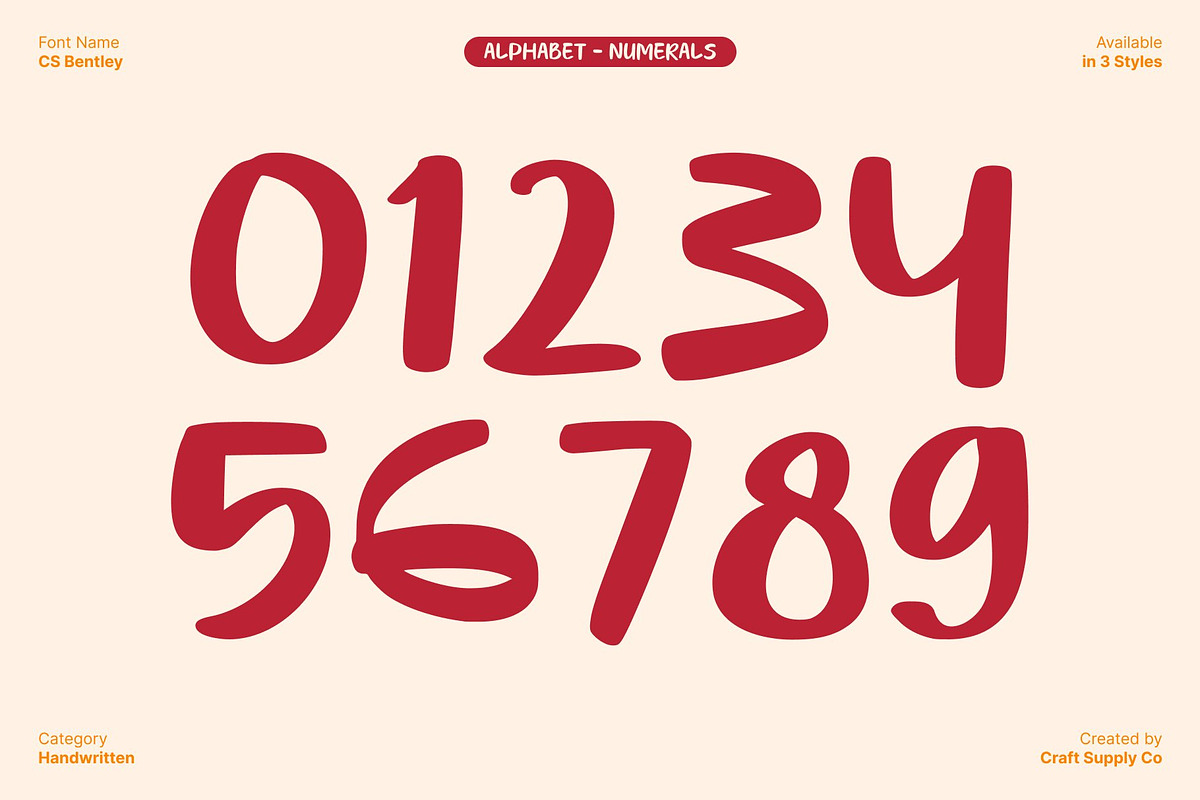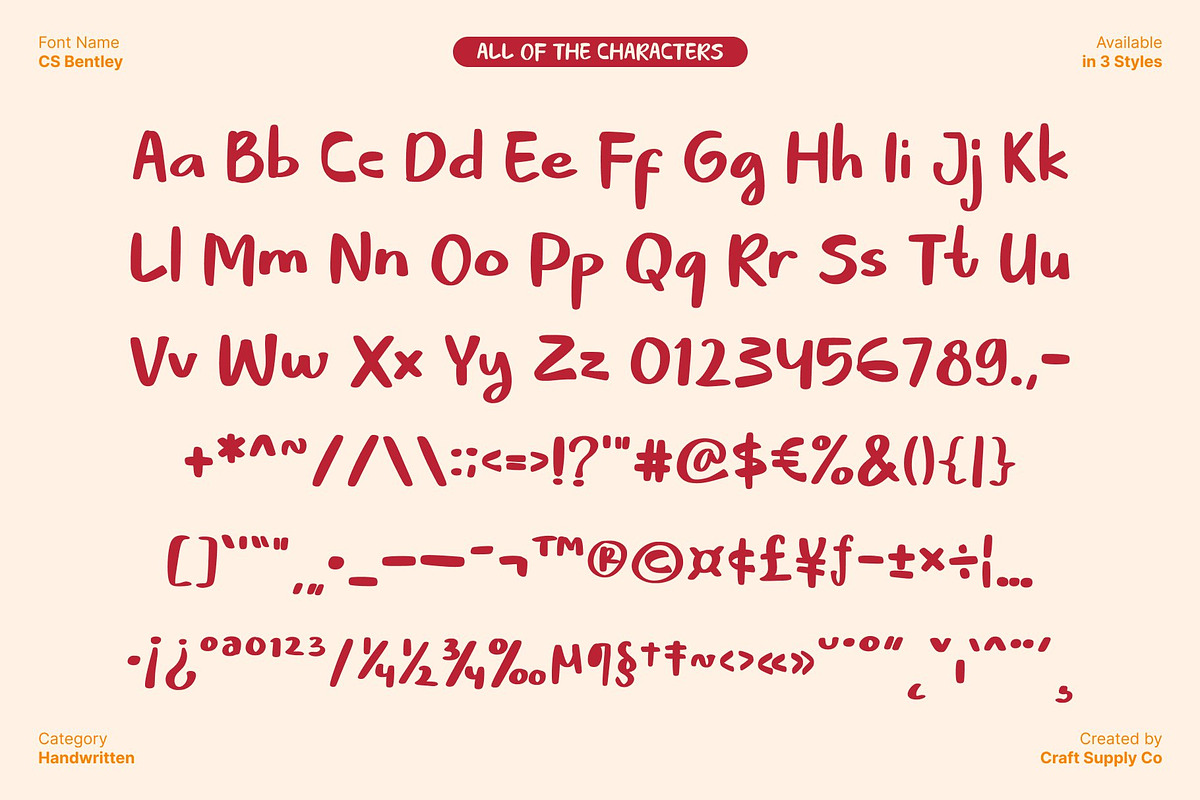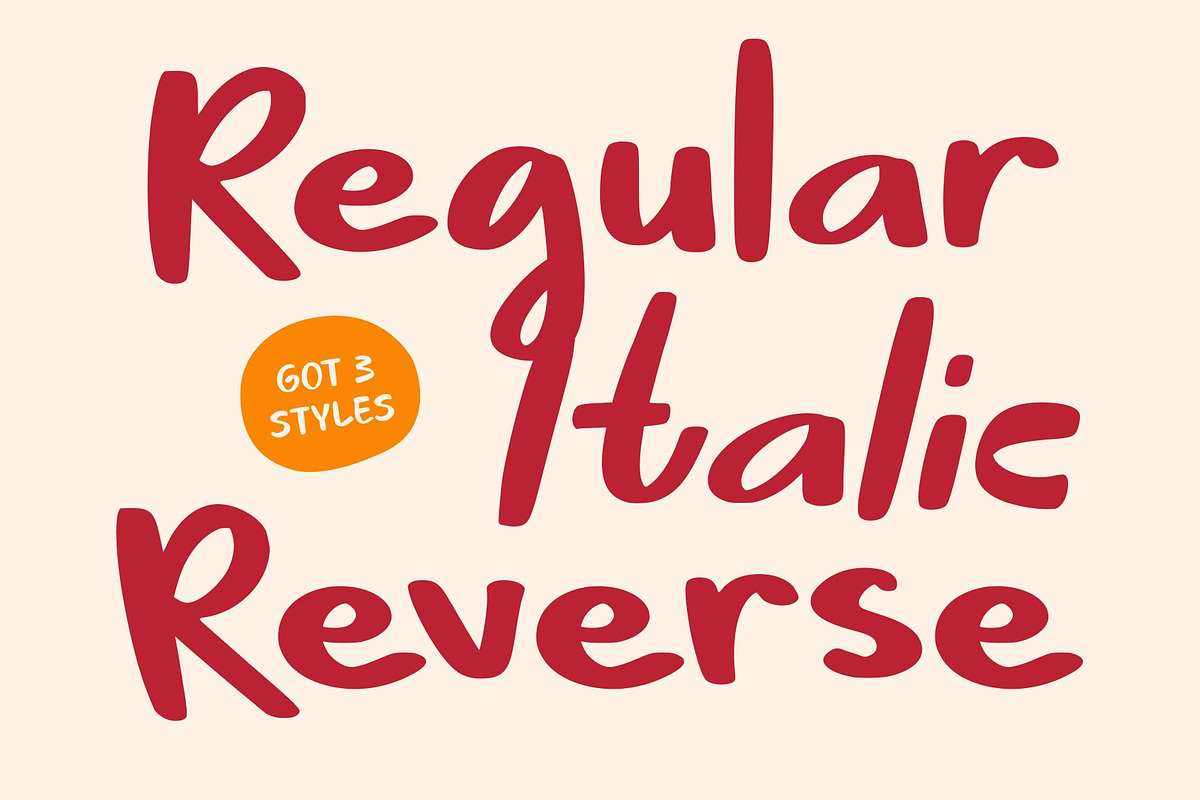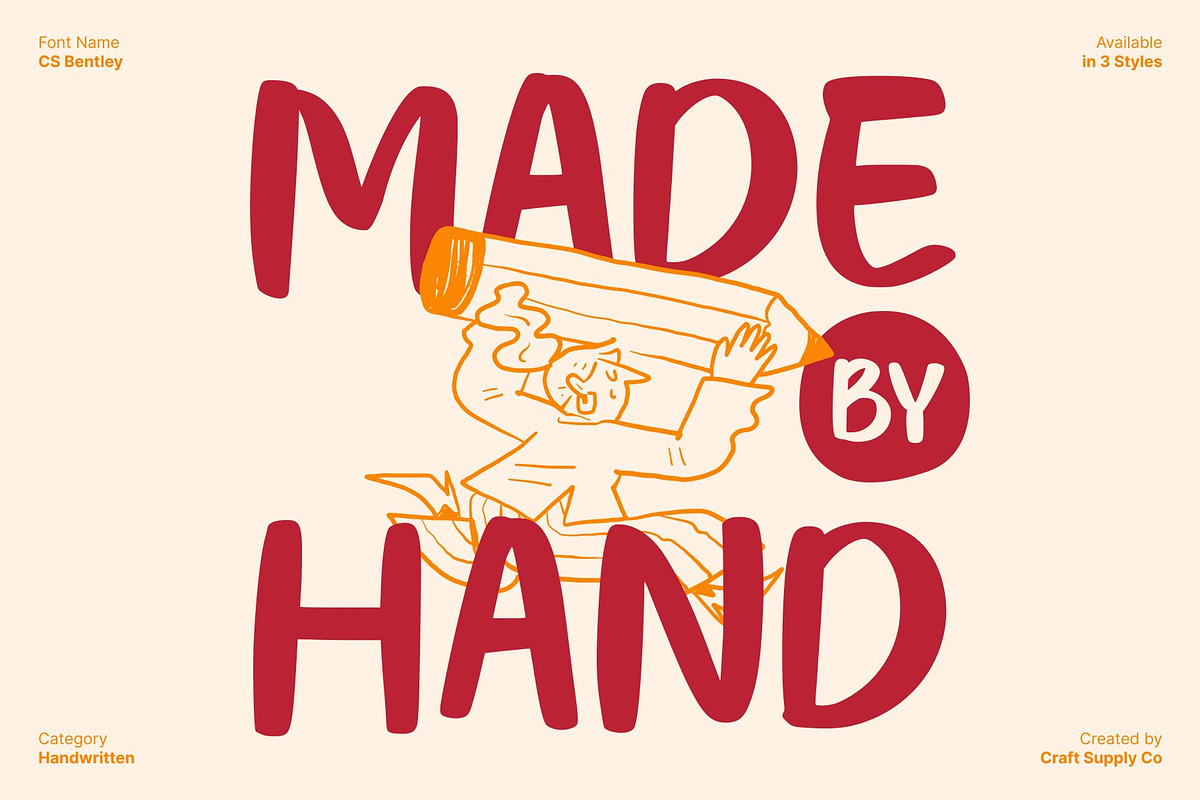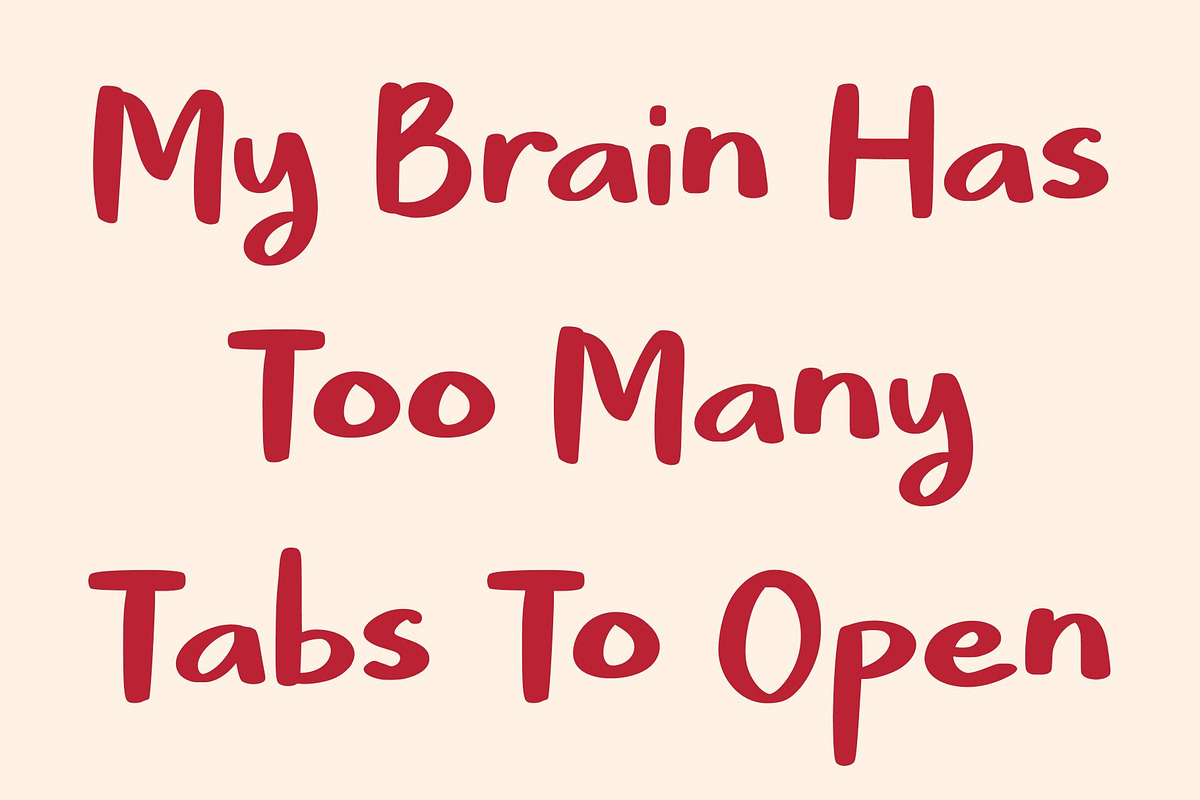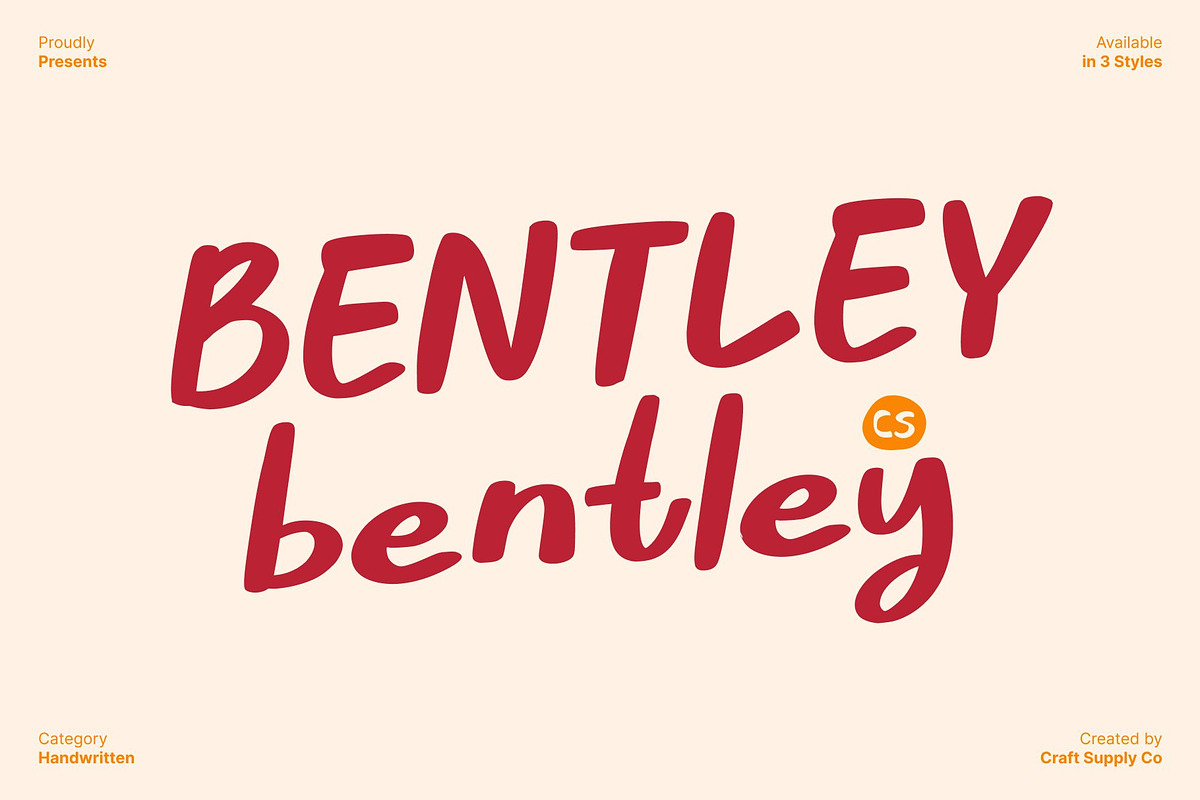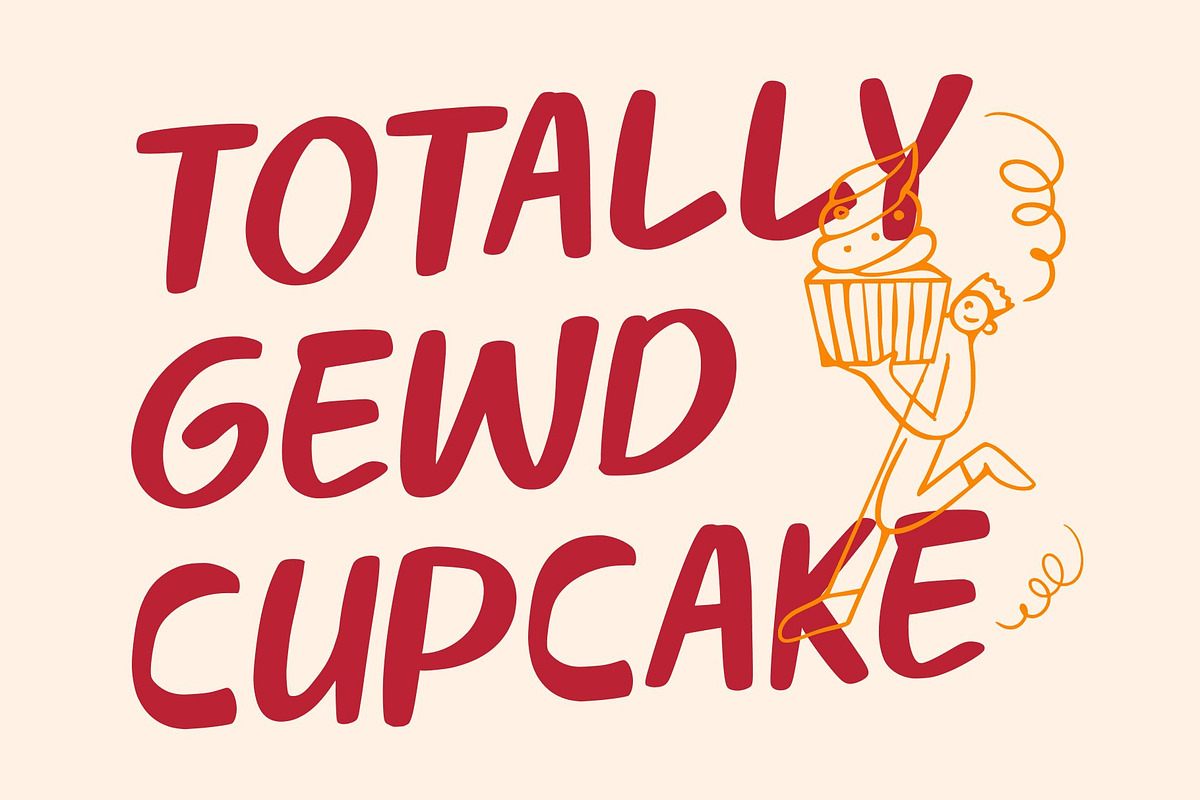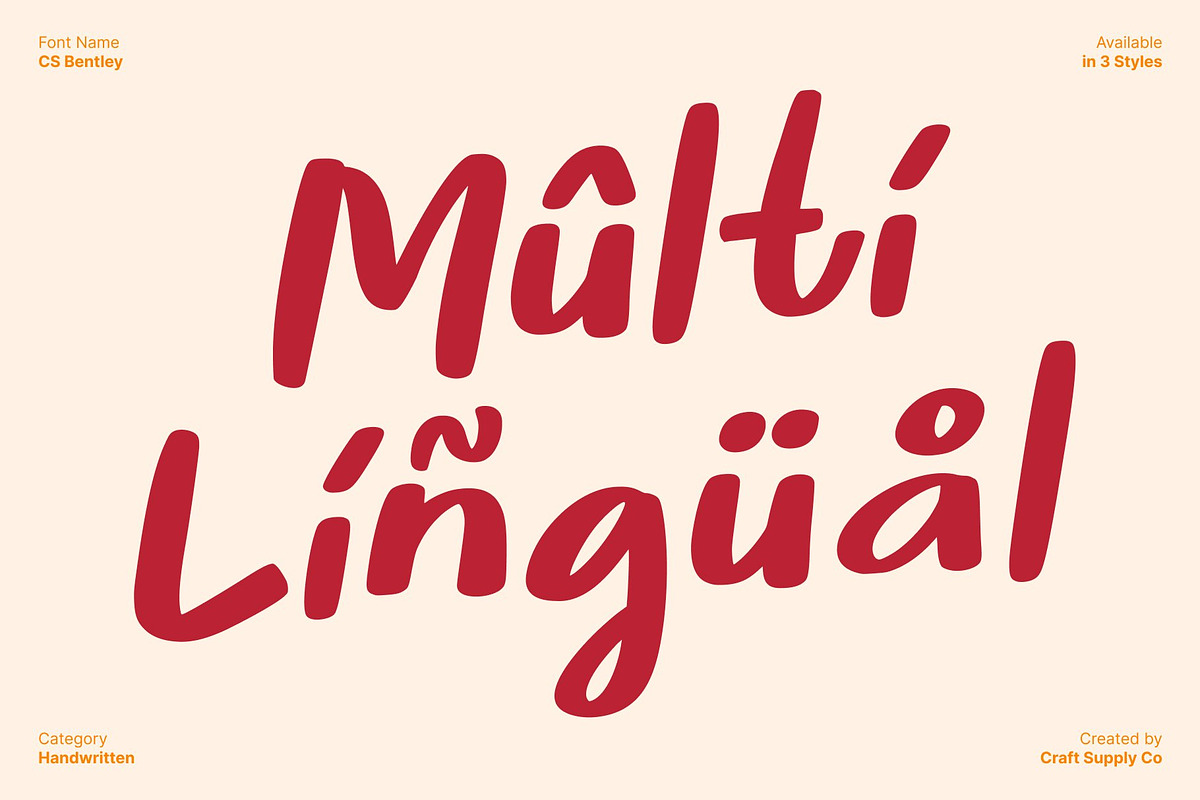
CS Bentley – Handwritten Font
CS Bentley – Soft Handwritten Font with Warm, Authentic Expression
Gentle Pen Strokes with Expressive Handwritten Charm This is a soft and expressive handwritten font that beautifully captures the authenticity of natural pen strokes. Each letter flows with ease, creating a smooth, organic rhythm that feels personal and heartfelt. Its warm and approachable style makes it perfect for designs that aim to connect emotionally with the audience, adding sincerity and softness to every message.
Warm, Authentic Texture for a Personal Touch With its subtle handcrafted feel, this font brings a comforting sense of realism to your typography. The gentle imperfections enhance its authenticity, giving your designs a friendly, human quality. This natural movement makes the font ideal for projects that want to feel genuine, personal, and expressive without being overly polished.
Perfect for Personal Branding and Creative Quotes This font excels in branding concepts that rely on personality and closeness. From signature-style logos to lifestyle branding and social media aesthetics, this font adds a relatable and intimate touch. Its expressive nature also makes it perfect for motivational quotes, handwritten captions, and creative text elements that demand emotional impact and visual warmth.
Ideal for Casual Invitations and Relaxed Print Designs Whether crafting casual invitations, greeting cards, or handmade-inspired layouts, this font brings effortless elegance and charm. Its soft handwritten style gives invitations a friendly, heartfelt tone, making every piece feel more meaningful.
- CS Bentley Regular
- CS Bentley Italic
- CS Bentley Reverse Italic